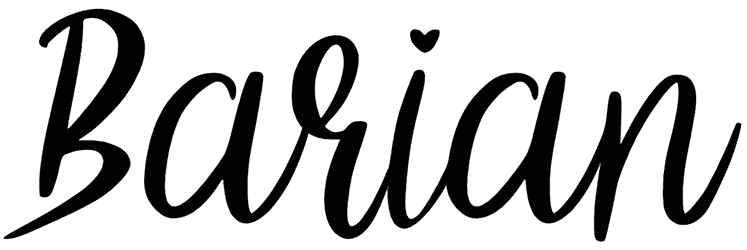
Barian Font
Barian can turn your writing into a personal statement that represents your feelings. Even without numbers, the personal touch in this script font can add personality and attitude to a quote or piece of writing to create…
Barian can turn your writing into a personal statement that represents your feelings. Even without numbers, the personal touch in this script font can add personality and attitude to a quote or piece of writing to create a gentle flow of love and intimacy.
Using a set of curved lines and connections in this romantic font has given it a dynamic state that makes it perfect for use in love letters or designing an extraordinary invitation card.